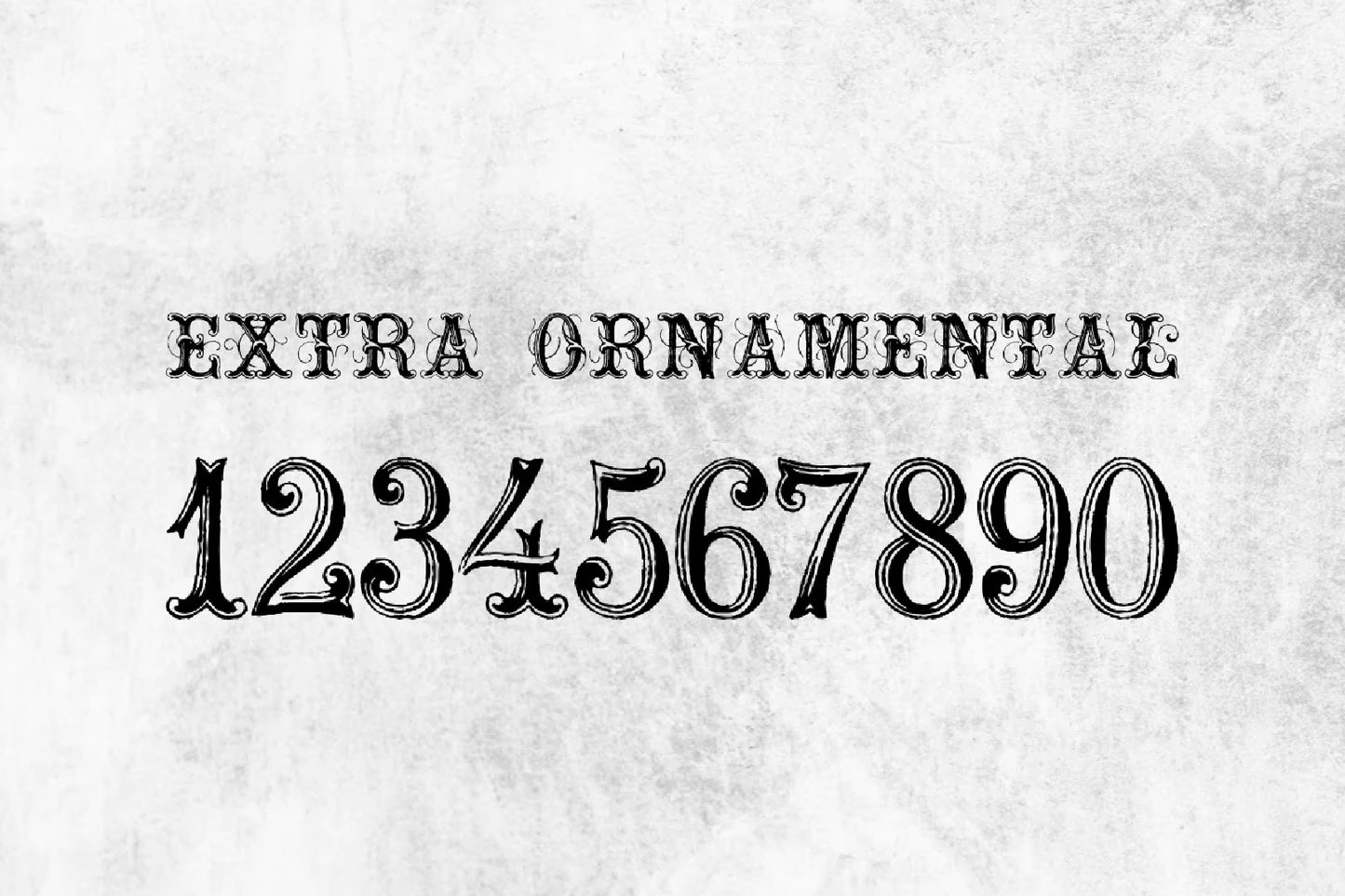
Extra Ornamental Tattoo Number Font
With a touch of vintage deliciousness, this cool tattoo number font called Extra Ornamental leaves a mark on you. Extra Ornamental is a truly gorgeous font that combines the vintage, classic style with a modern twist. Its elegant look and feel lend themselves perfectly to use in any design, from logos and branding to tattoo numbering and all kinds of other projects.